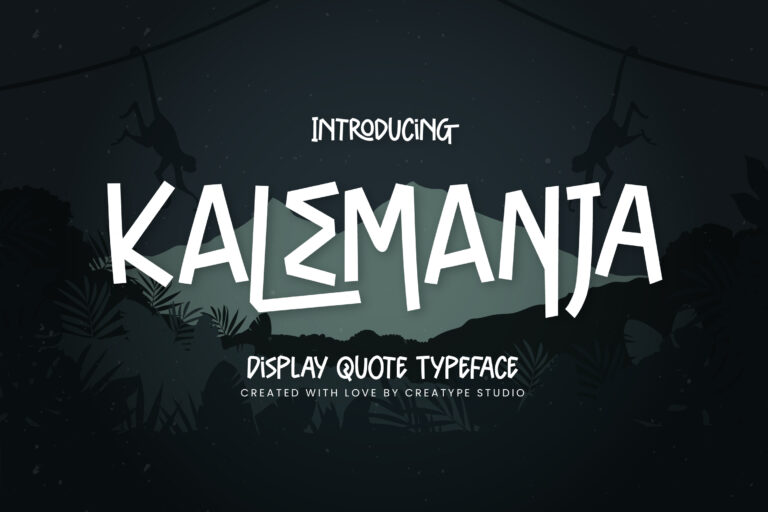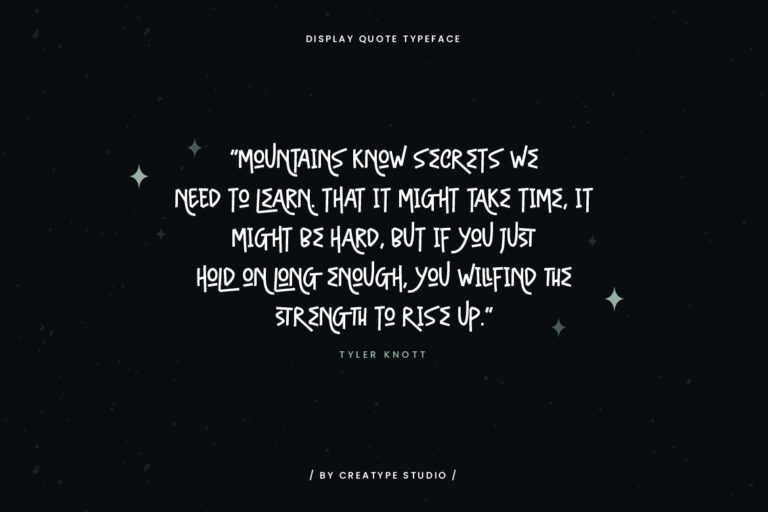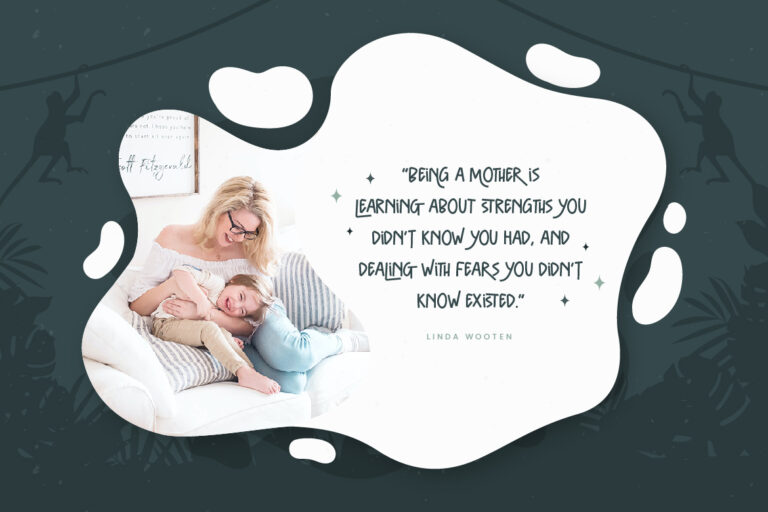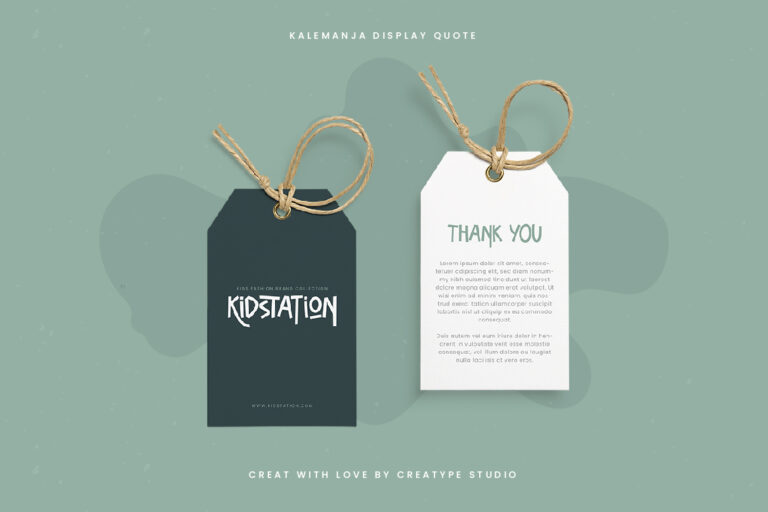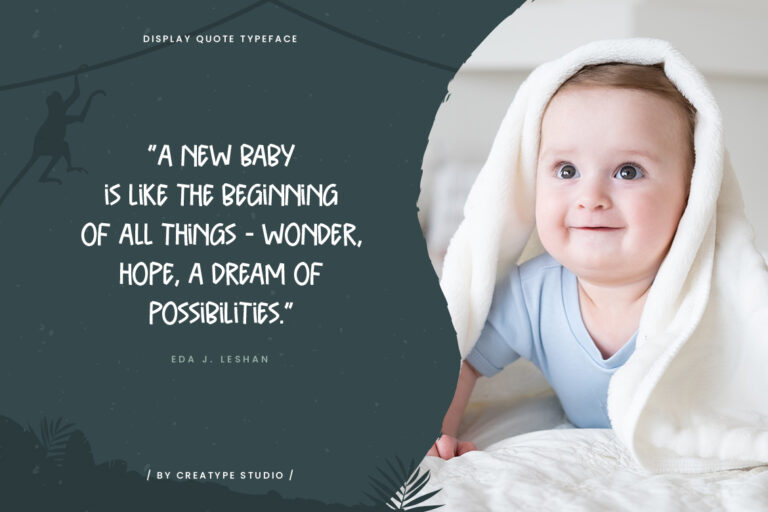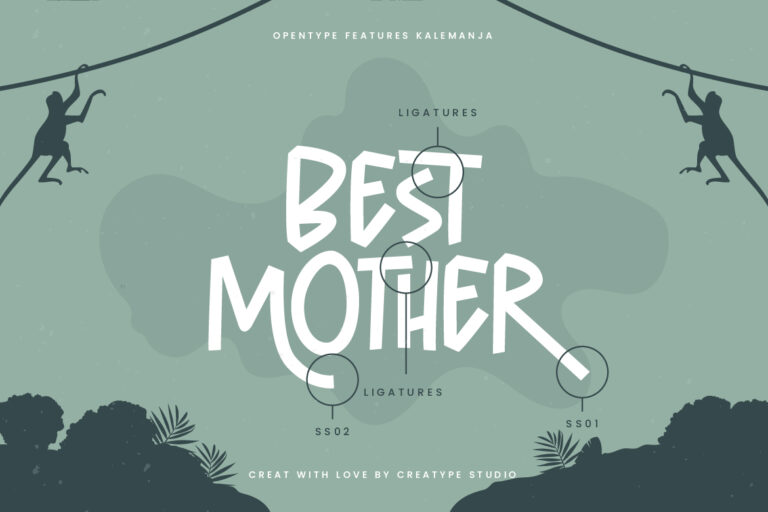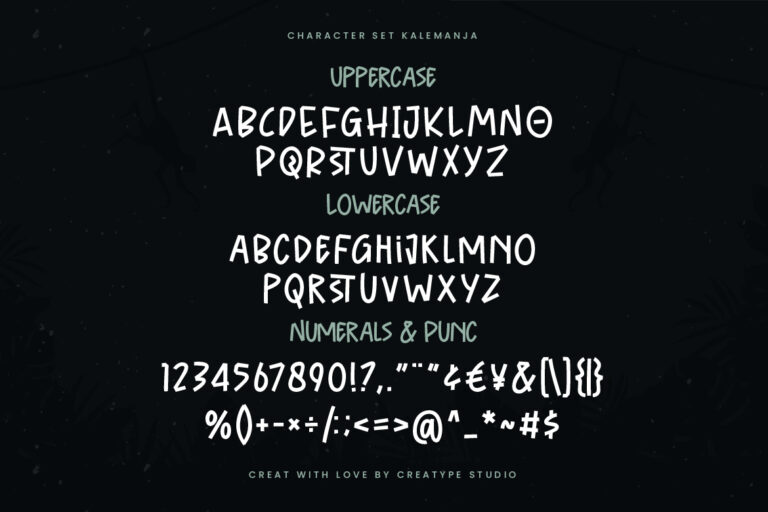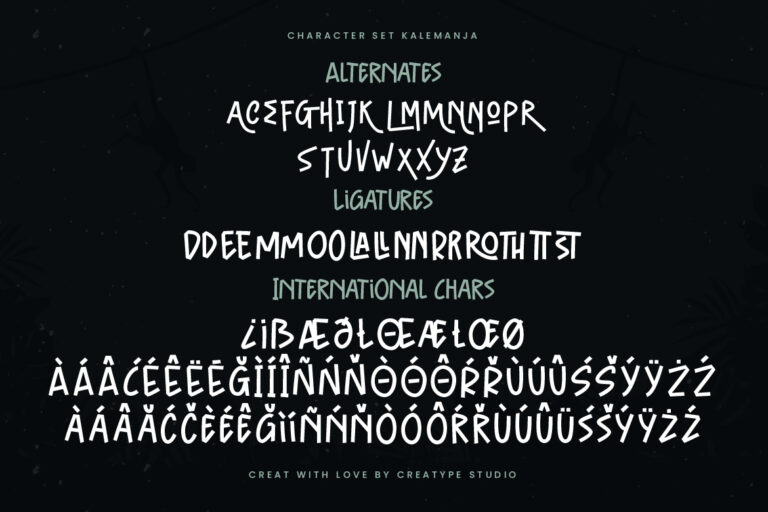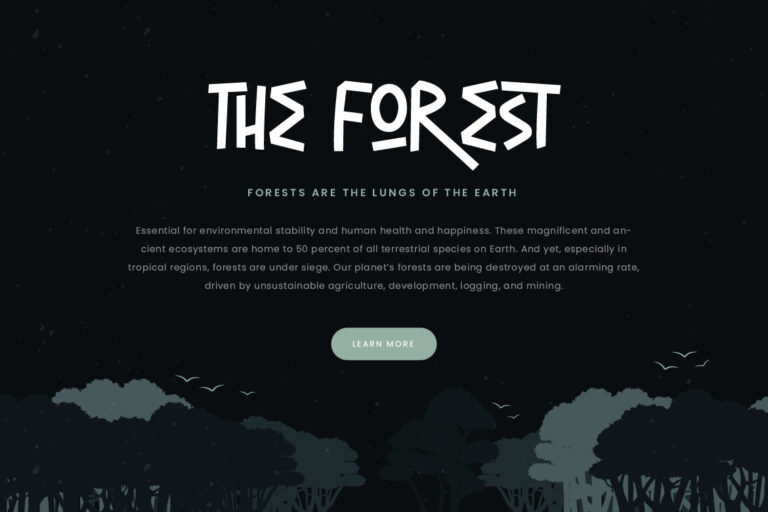
Kalemanja is a Display quote typeface. Crafted with love, this font will make your projects look great with their unique and distinctive shapes. Kalemanja is a great choice for all your big projects.
Kalemanja is perfect for branding projects, logo, wedding designs, social media posts, advertisements, product packaging, product designs, label, photography, watermark, invitation, stationery and any projects that need handwriting taste.
Kalemanja Display Quote